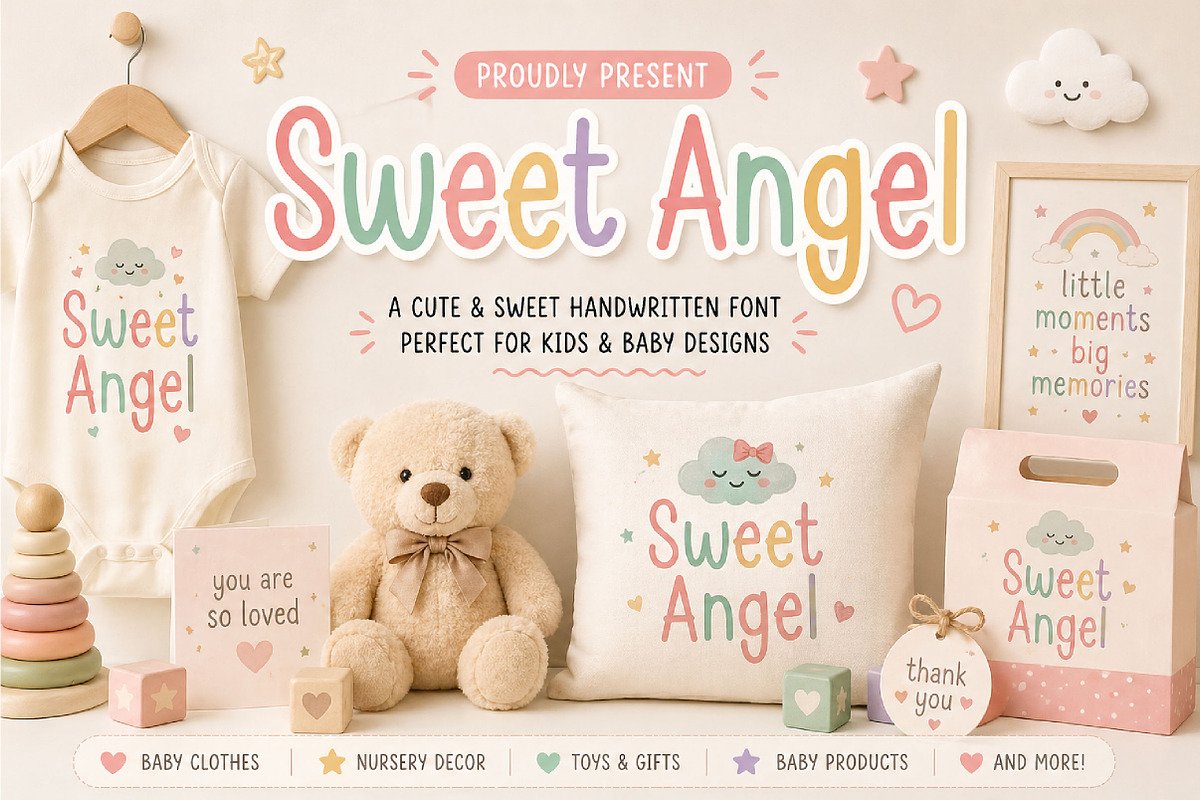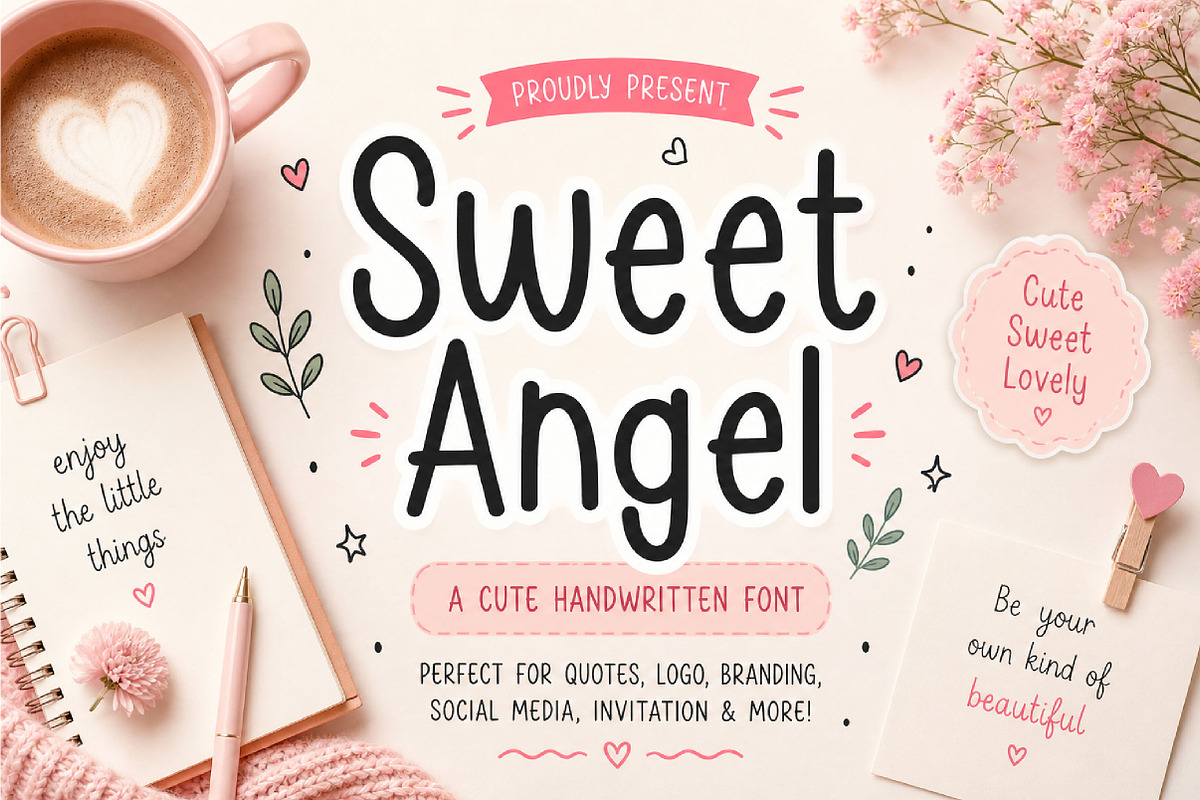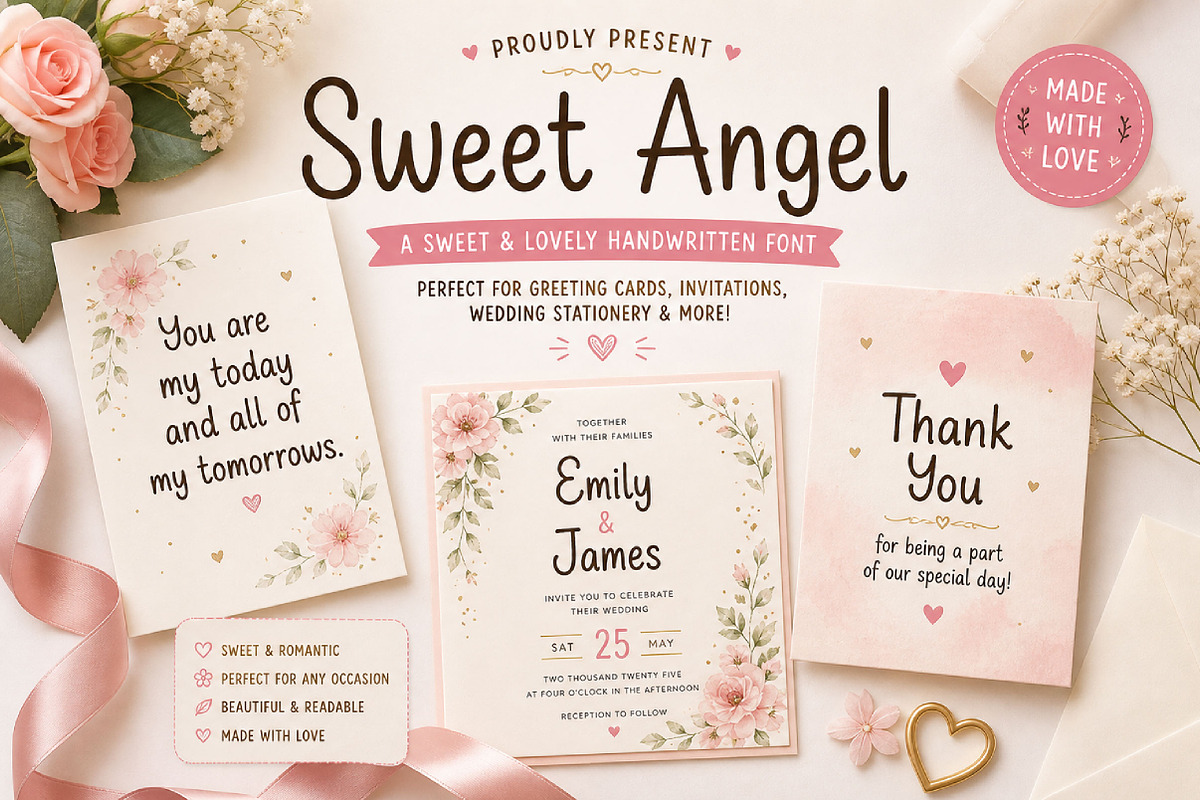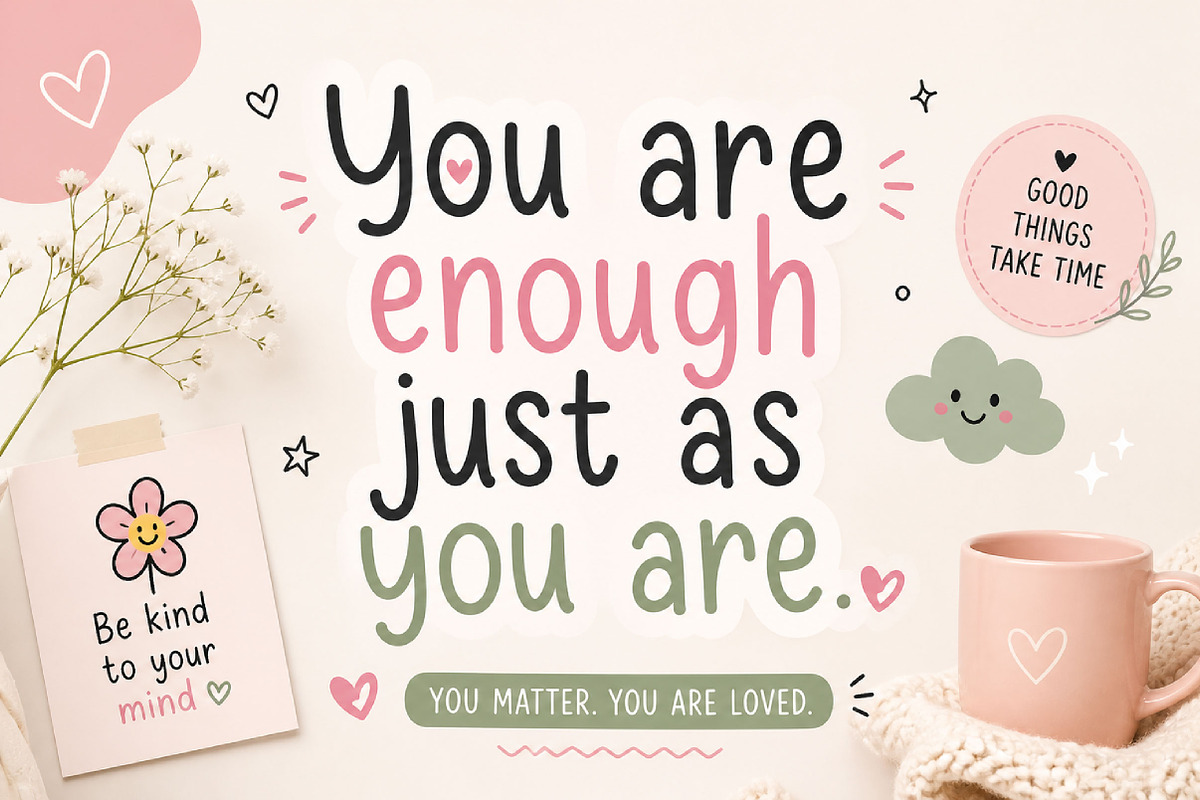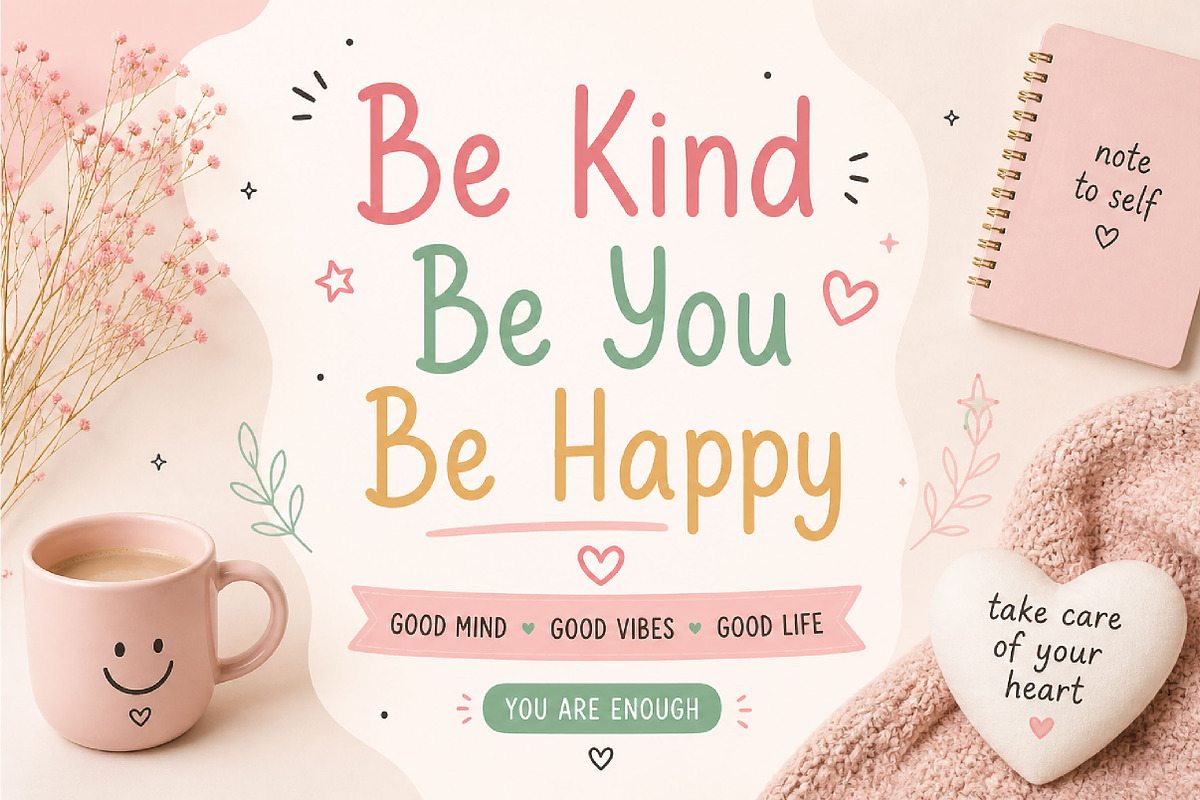
Sweet Angel
Sweet Angel – Cute Handwritten Script Font
Sweet Angel is a cute handwritten script font with tall, smooth letterforms and a soft playful style, perfect for logos, invitations, packaging, social media, quotes, and feminine designs.
Sweet Angel is a charming handwritten script font designed to bring sweetness, warmth, and personality to your creative projects. With its tall letterforms, smooth curves, and natural hand-drawn style, this font creates a soft and friendly look that feels elegant, playful, and full of character.
Its sweet handwritten style makes Sweet Angel perfect for designs that need a personal and delicate touch. Use it for logo design, branding, invitations, greeting cards, product packaging, social media graphics, stickers, merchandise, website headers, creative quotes, and lifestyle designs.
Logos and branding
Invitations and greeting cards
Product packaging
Stickers and labels
Merchandise design
Feminine branding
Website headers
Creative quotes
Lifestyle designs
Cute handwritten style
Smooth tall letterforms
Soft playful look
Natural hand-drawn feel
Perfect for display use